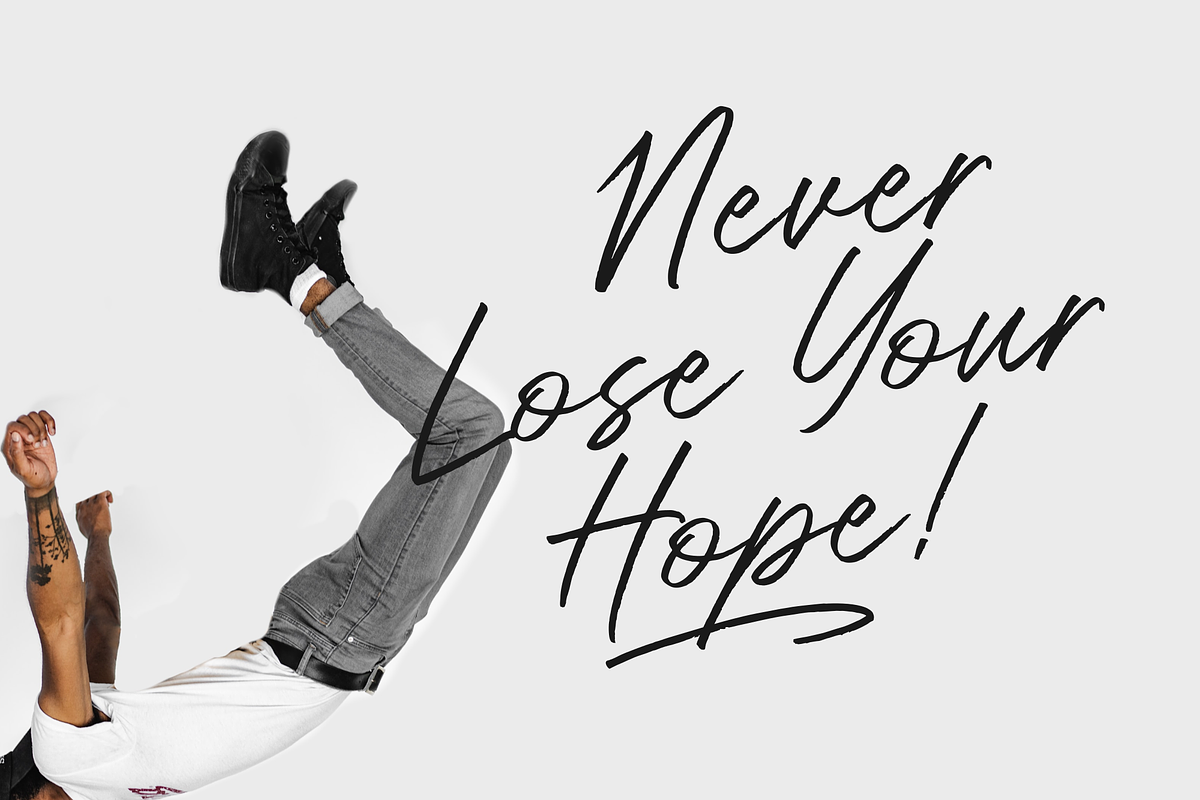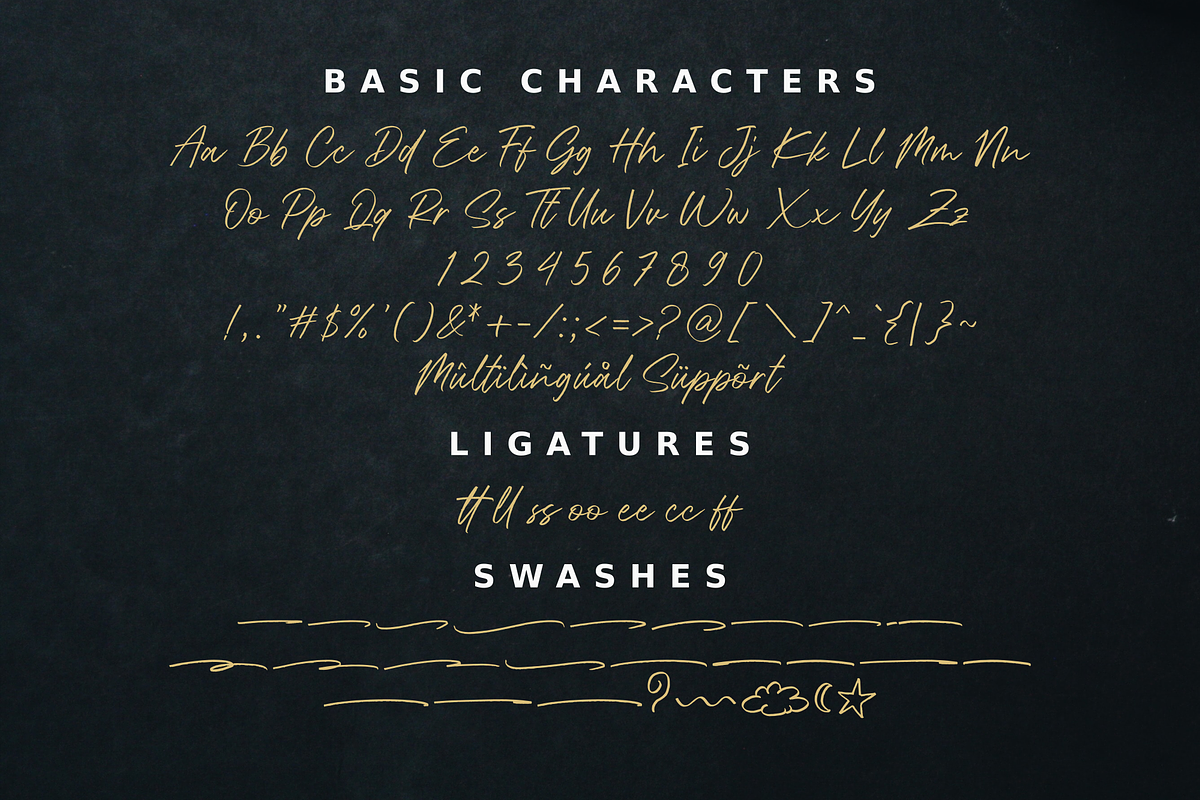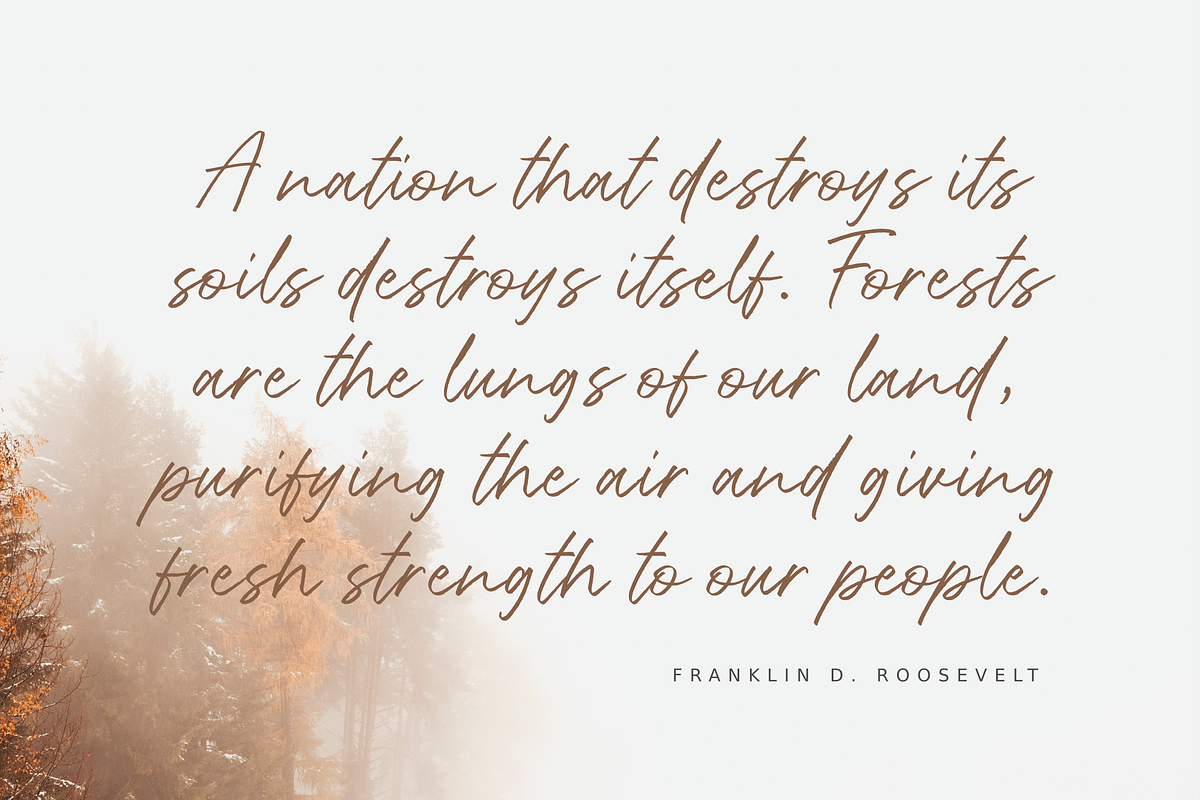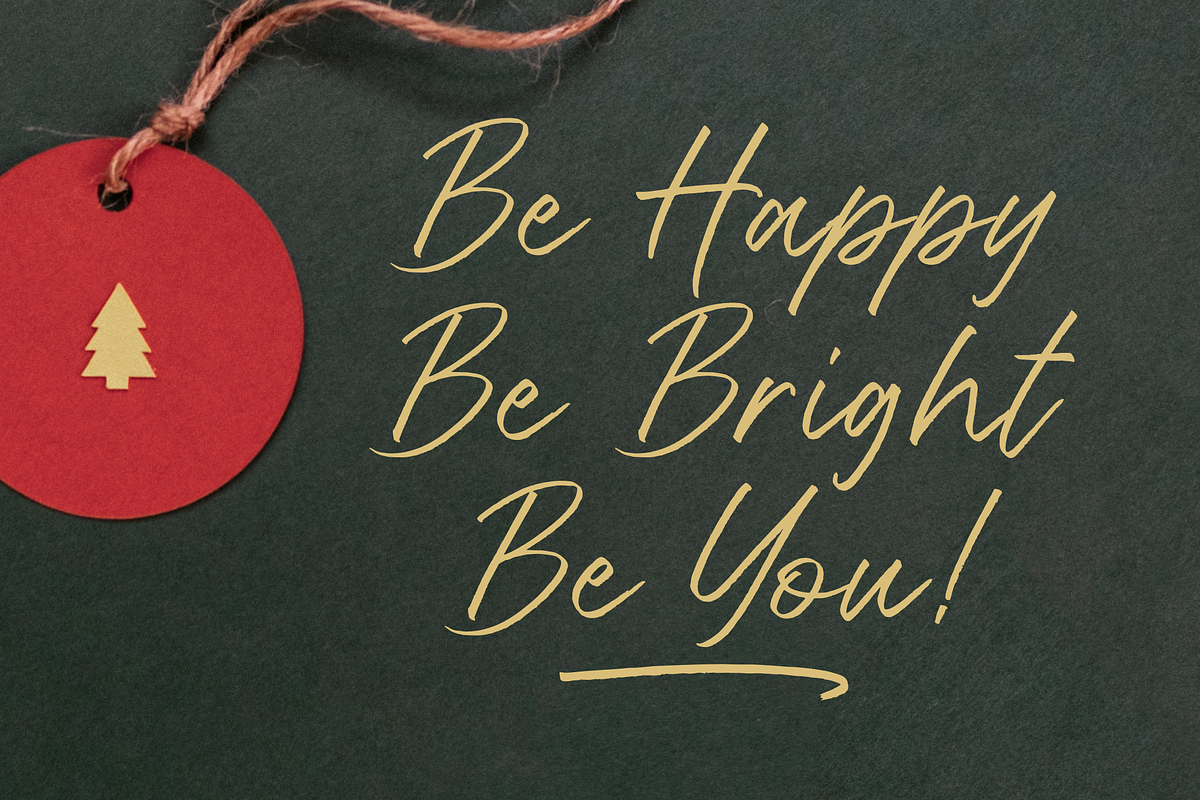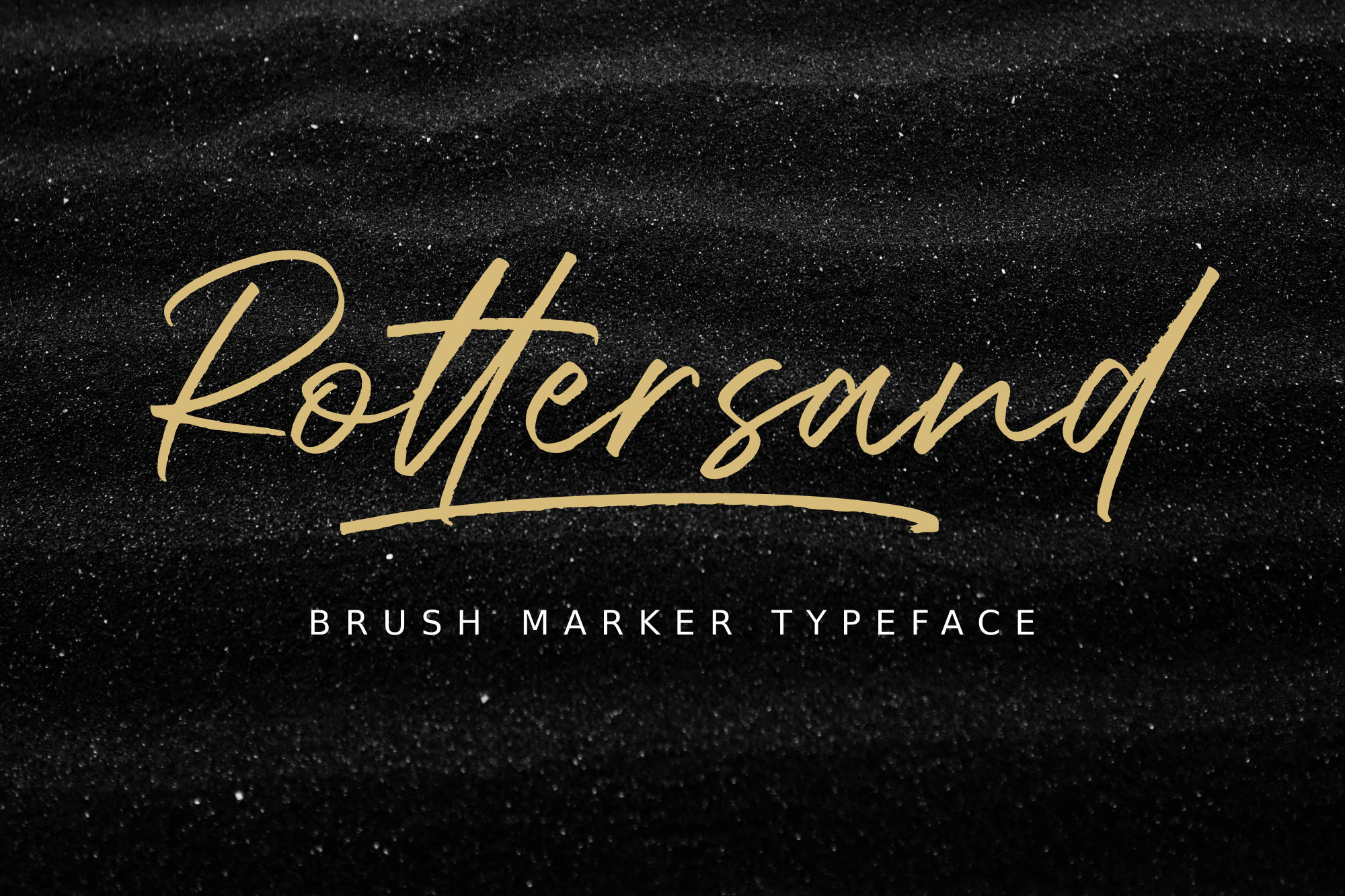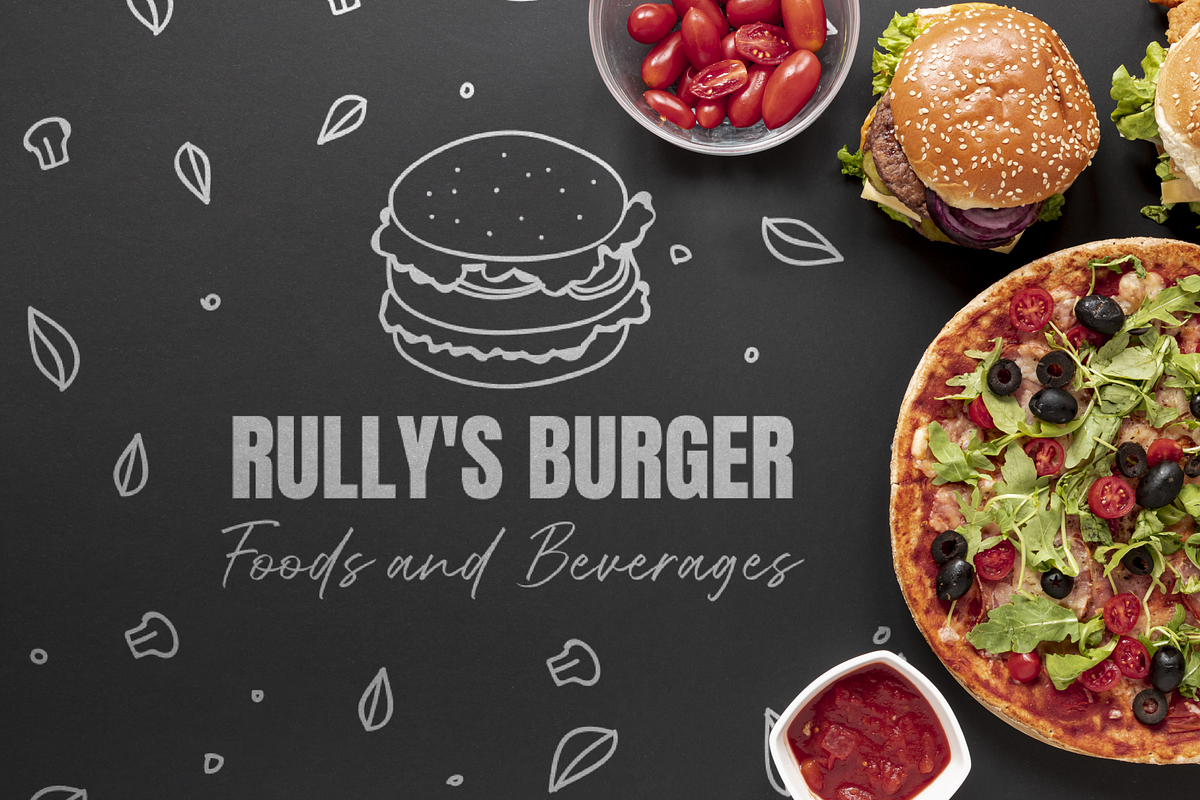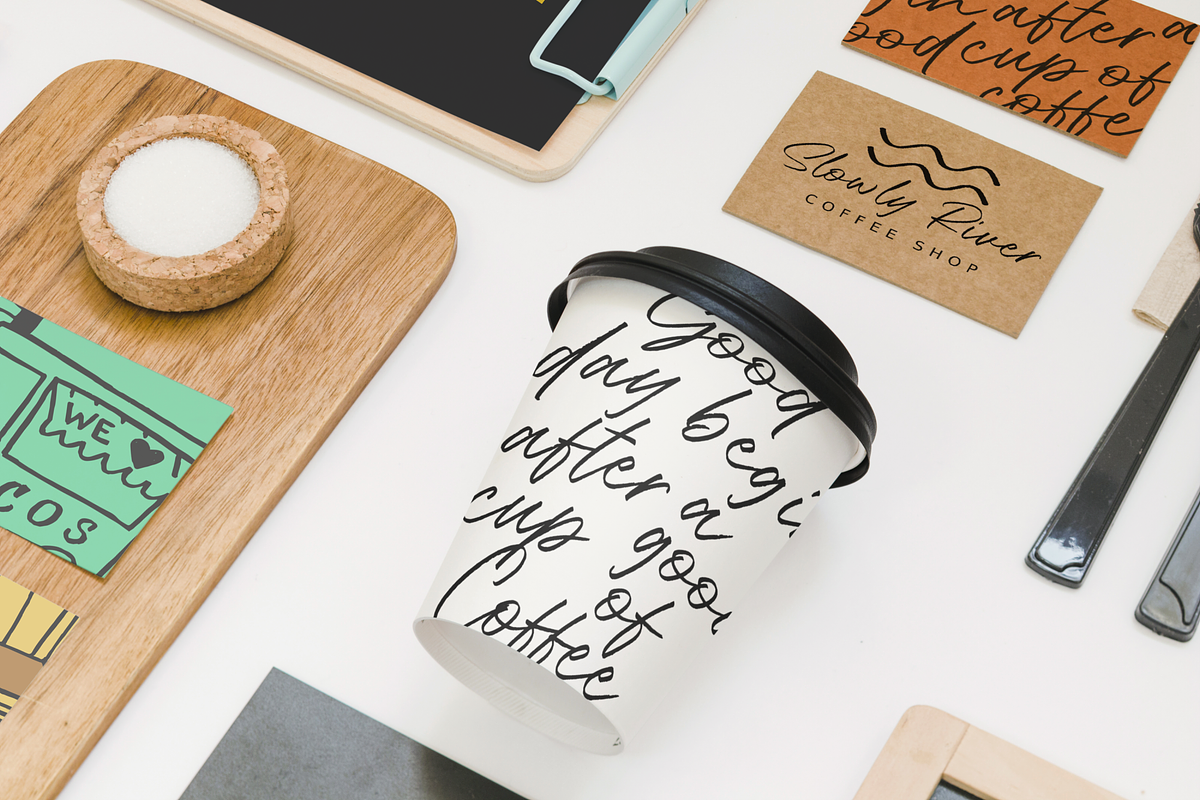
Rottersand - Brush Font
Rottersand is a handmade brush marker script font. Textures are very natural, pure hand-lettering made.
Rottersand is very suitable for poster ads, branding, invitation cards or any other designs which needs a handwritten touch.